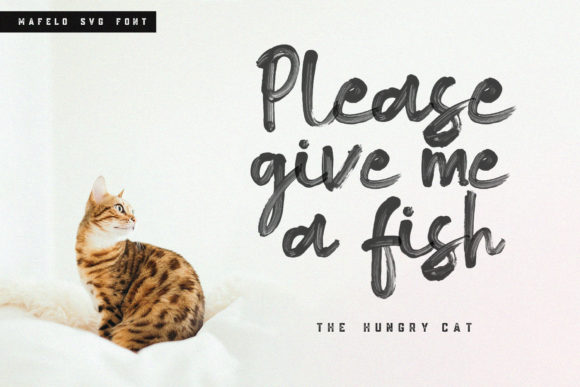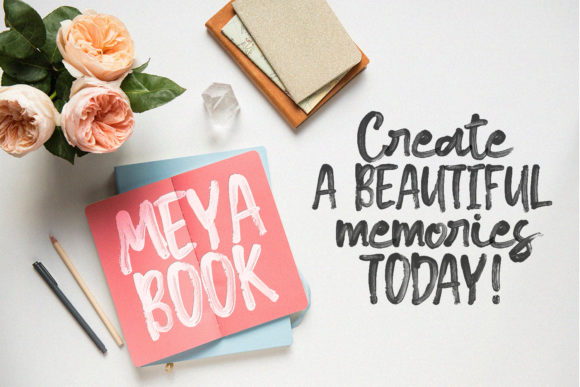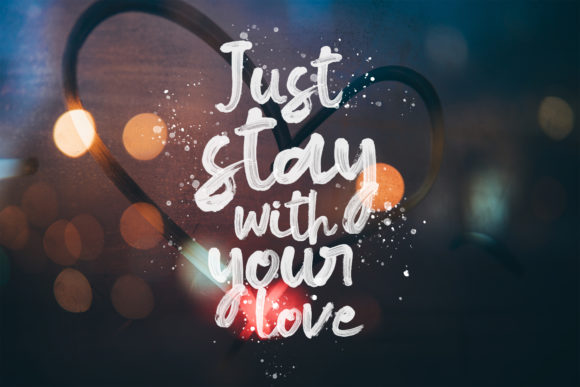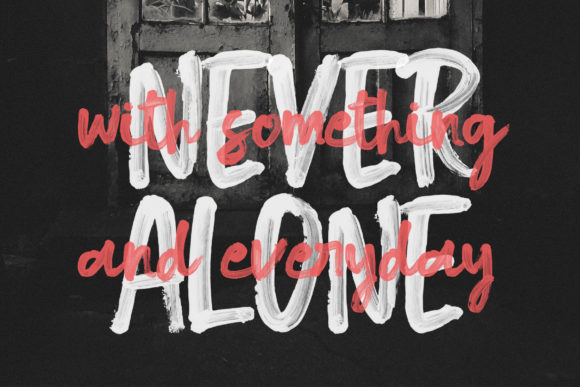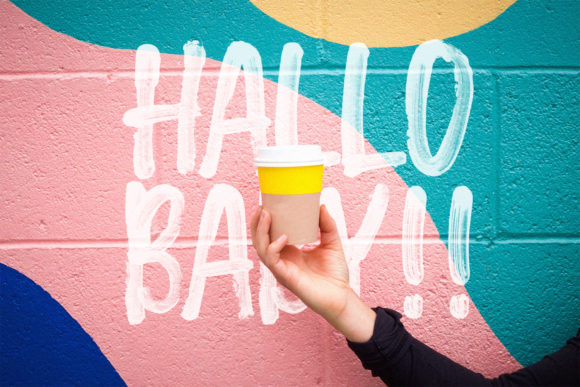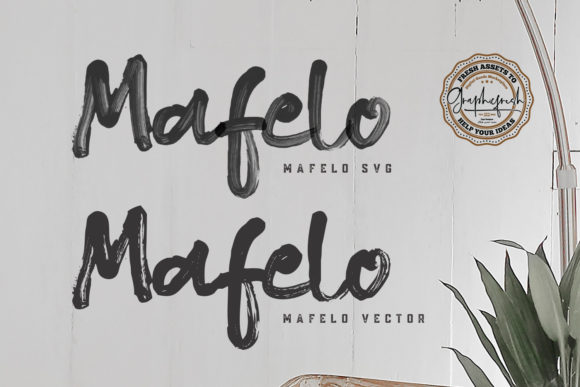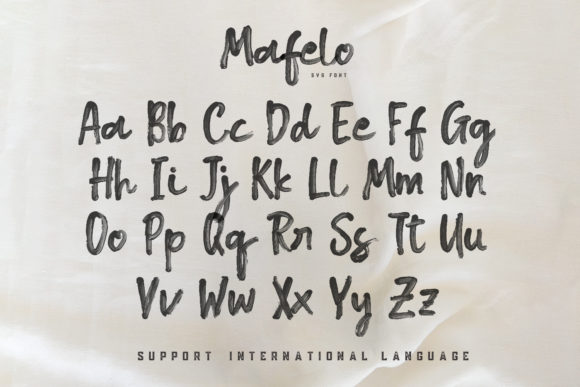
HomeScript FontsMafelo Font Script Fonts Mafelo Font FacebookXPinterestWhatsApp Mafelo Font Poster 2 Mafelo Font Poster 3 Mafelo Font Poster 4 Mafelo Font Poster 5 Mafelo Font Poster 6 Mafelo Font Poster 7 Mafelo Font Poster 8 About Mafelo Font Mafelo is a unique handwritten font with a bold twist. It will put an authentic spin on any design idea. DOWNLOAD ON CREATIVE FABRICAThis font is sold and delivered by Creative Fabrica. Font Canyon may earn a commission if you buy through this link. People also explored Buree Chalk Font American Signature Font Love Girl Font Bakey Font Together Font Rama Gothic Rounded Julienne Saulifriend Font Unicorn Font 393 0 TagsMafelo Font Previous articleMilsey FontNext articleDellmonte Duo Font LEAVE A REPLY Cancel reply Comment: Please enter your comment! Name:* Please enter your name here Email:* You have entered an incorrect email address! Please enter your email address here Website: Save my name, email, and website in this browser for the next time I comment. Personal Use Free Winter Soldier Personal Use Free Read more about this font Choco Shake Font Personal Use Free Read more about this font Advantage Personal Use Free Read more about this font Bajt Rounded Personal Use Free Read more about this font BLOG Best Fonts for T-Shirt Design – Top 2025 Picks In 2025, t-shirt design has become more than just fashion—it's a form of self-expression. Whether you're... Fonts That Capture the Spirit of New York City How to Cut Any Font on Cricut: Convert a Font to SVG (Free) 5 Fonts That Will Dominate Design Trends in 2026